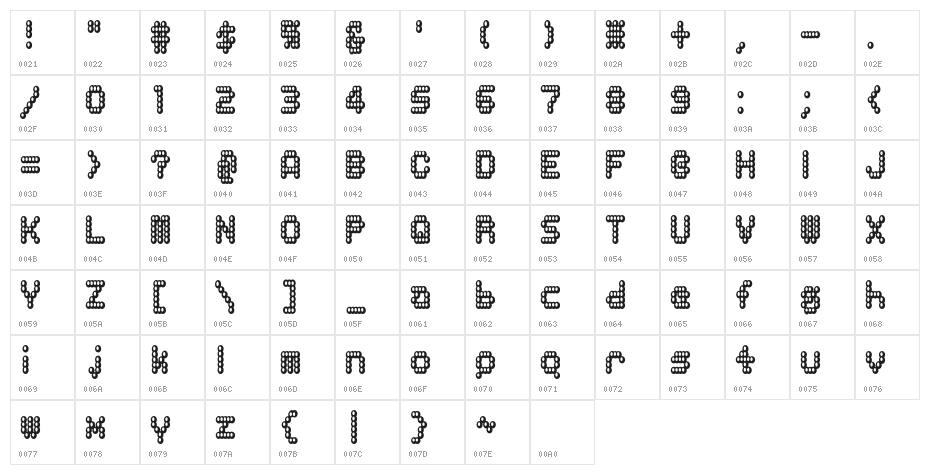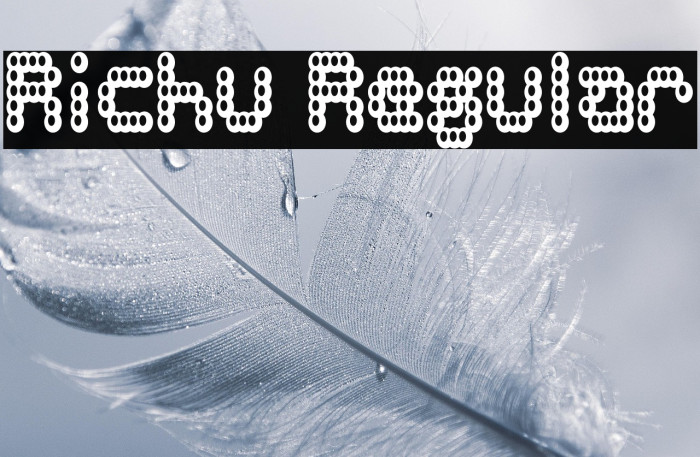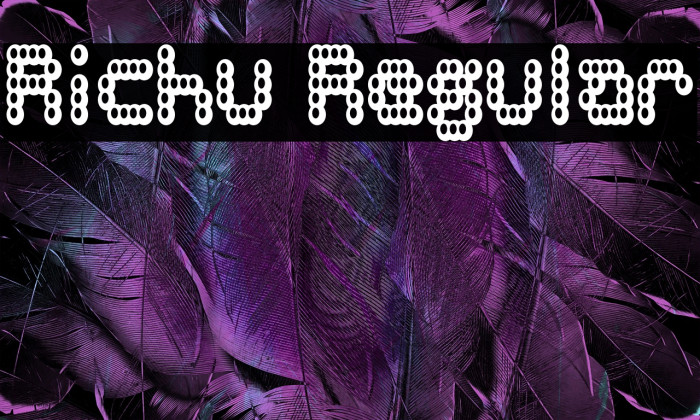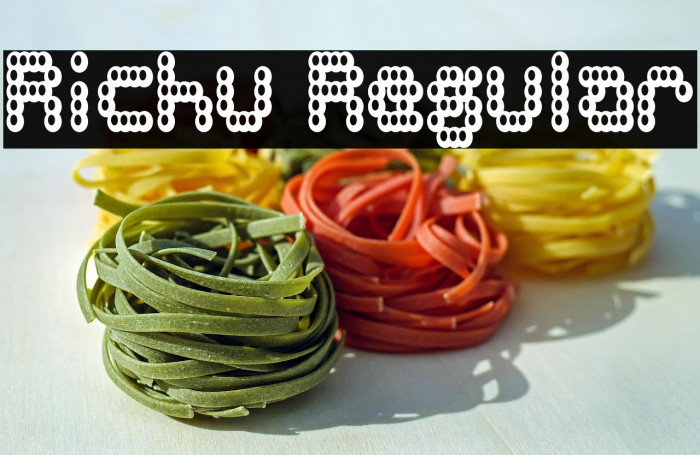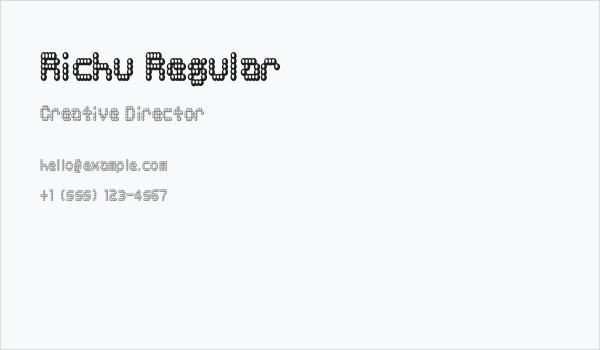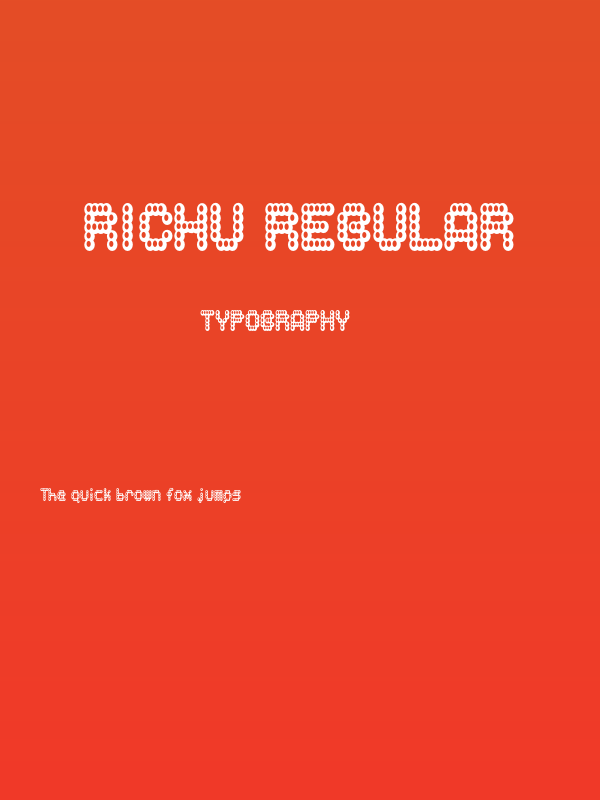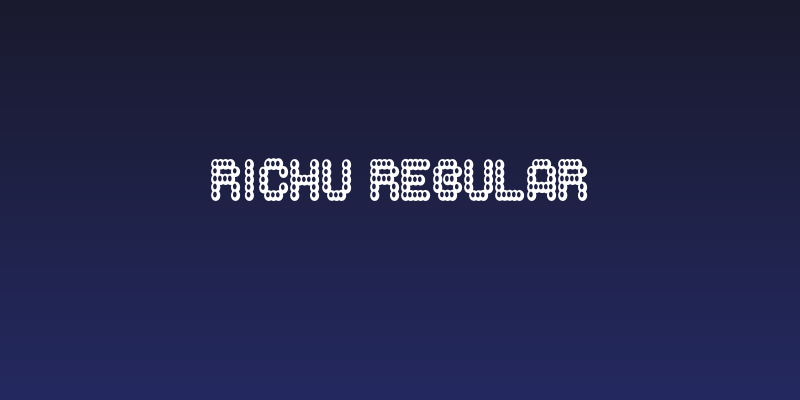
Richu Regular Font
Richu Regular Description
This font features a unique and playful design composed of small circular dots forming each character. The letters are evenly spaced and maintain a consistent size, creating a cohesive and visually appealing appearance. The rounded shapes give it a friendly and approachable feel, while the geometric arrangement of the dots adds a modern touch. This font is highly decorative and stands out due to its distinct style, making it suitable for creative and eye-catching designs.
Overall StyleModern, Decorative
Proposed ProjectsIdeal for children's books, playful branding, party invitations, and creative posters.